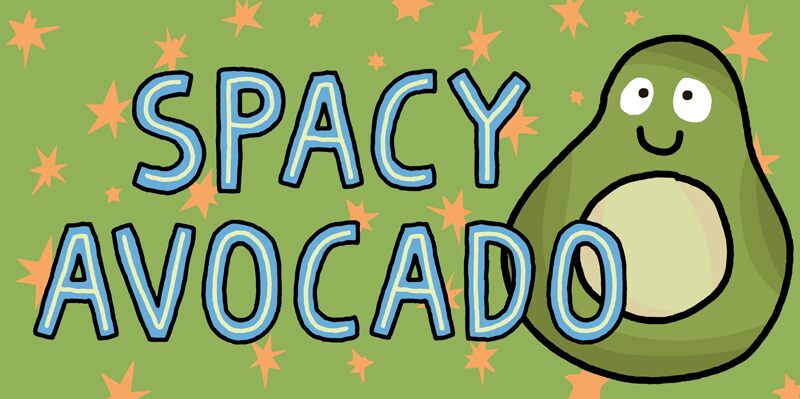
Spacy Avocado DEMO Regular
Spacy Avocado leaps off the page with its playful and cartoonish flair. Crafted by Pizzadude, this display font boasts a bold weight that commands attention while maintaining an air of fun and creativity. The character shapes are rounded and friendly with a dynamic flow, perfectly suited for projects that aim to be eye-catching and approachable.
The font's aesthetic charm lies in its ability to evoke a sense of whimsy without sacrificing readability. Each letter in Spacy Avocado is designed with a unique twist that mirrors the quirky name it bears. The lines are thick, making them ideal for headings, posters, children's books, or any design project that desires a touch of lightheartedness.
Embracing its cartoon style roots, Spacy Avocado is versatile enough to infuse life into animations, games, or branding materials that aim to stand out with personality. It's more than just typeface; it's a statement piece that invites designers to playfully engage their audience.